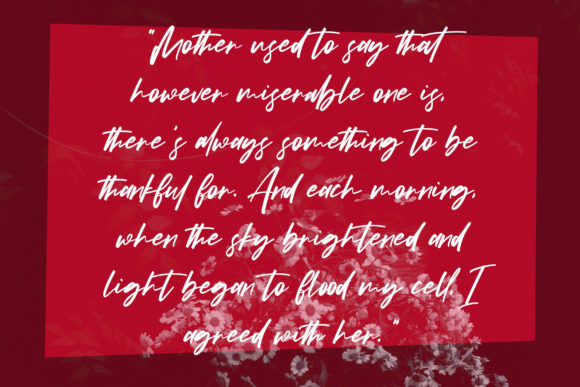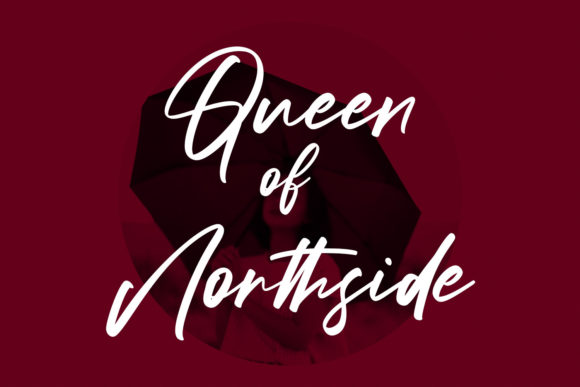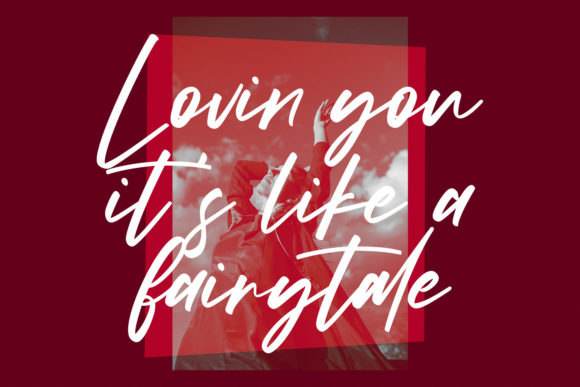
About Hartwick Script Font
Hartwick Script is an expressive signature script font. This font reads as strong, confident, and dynamic and can add tons of stylish character to your designs.